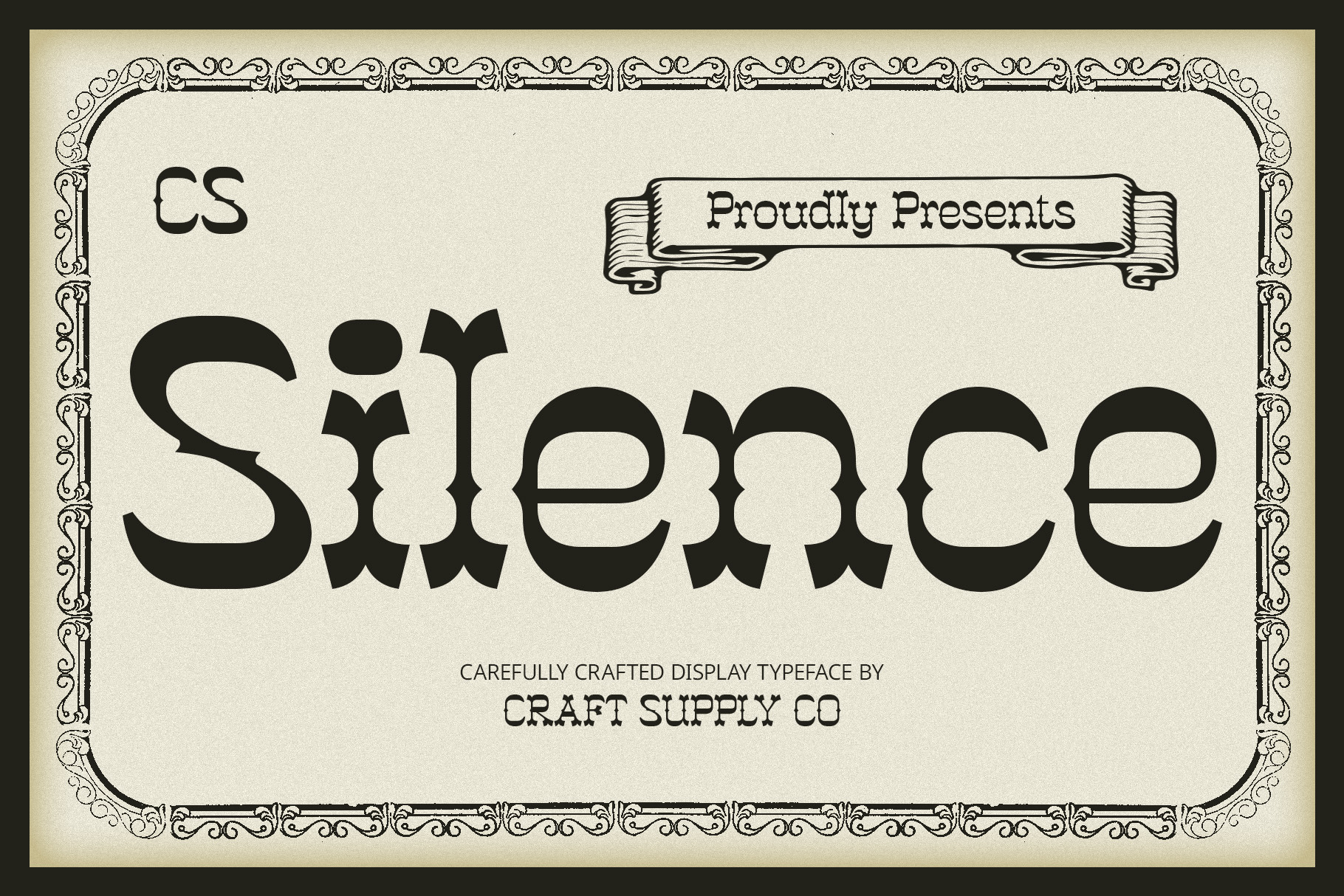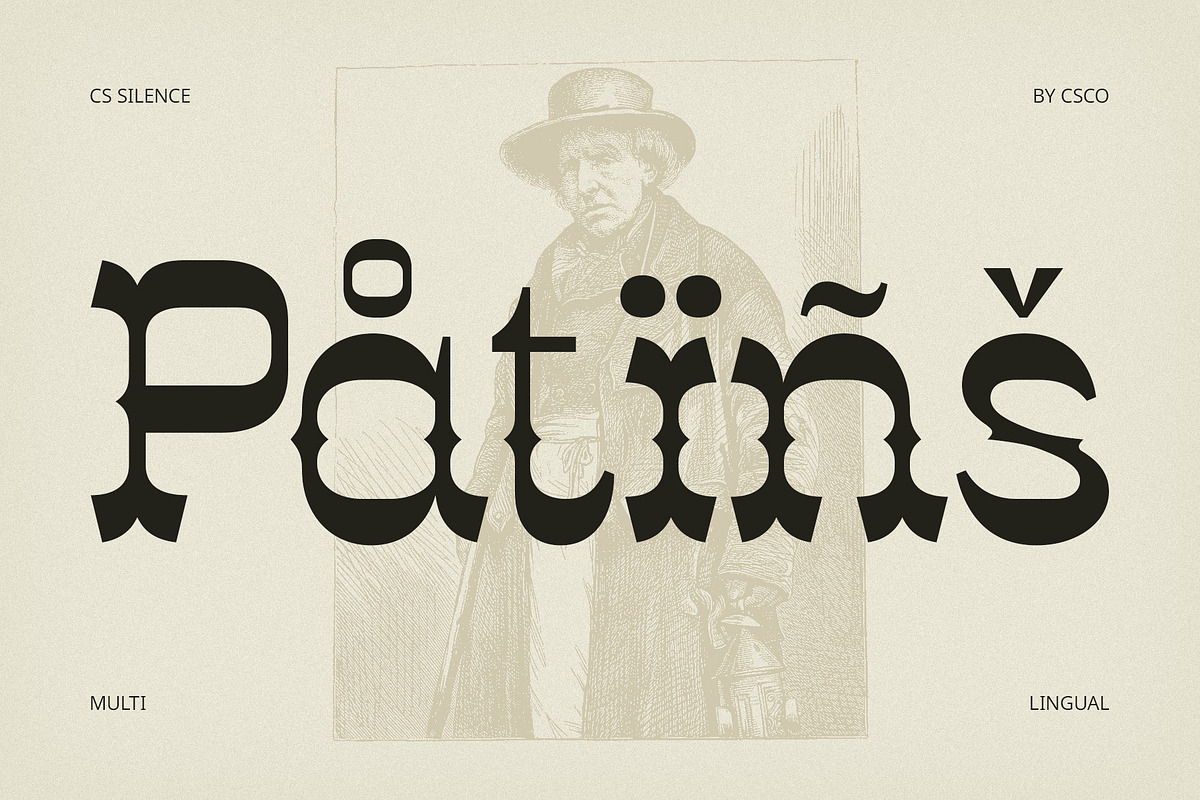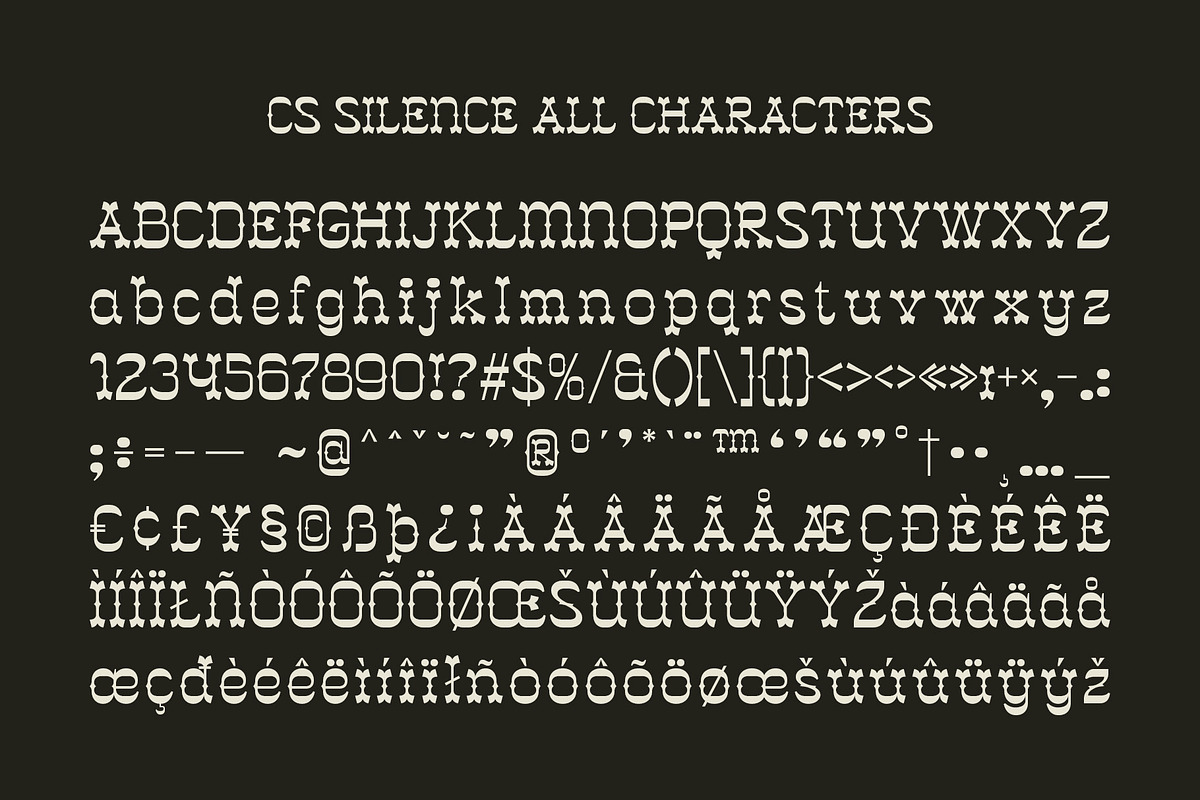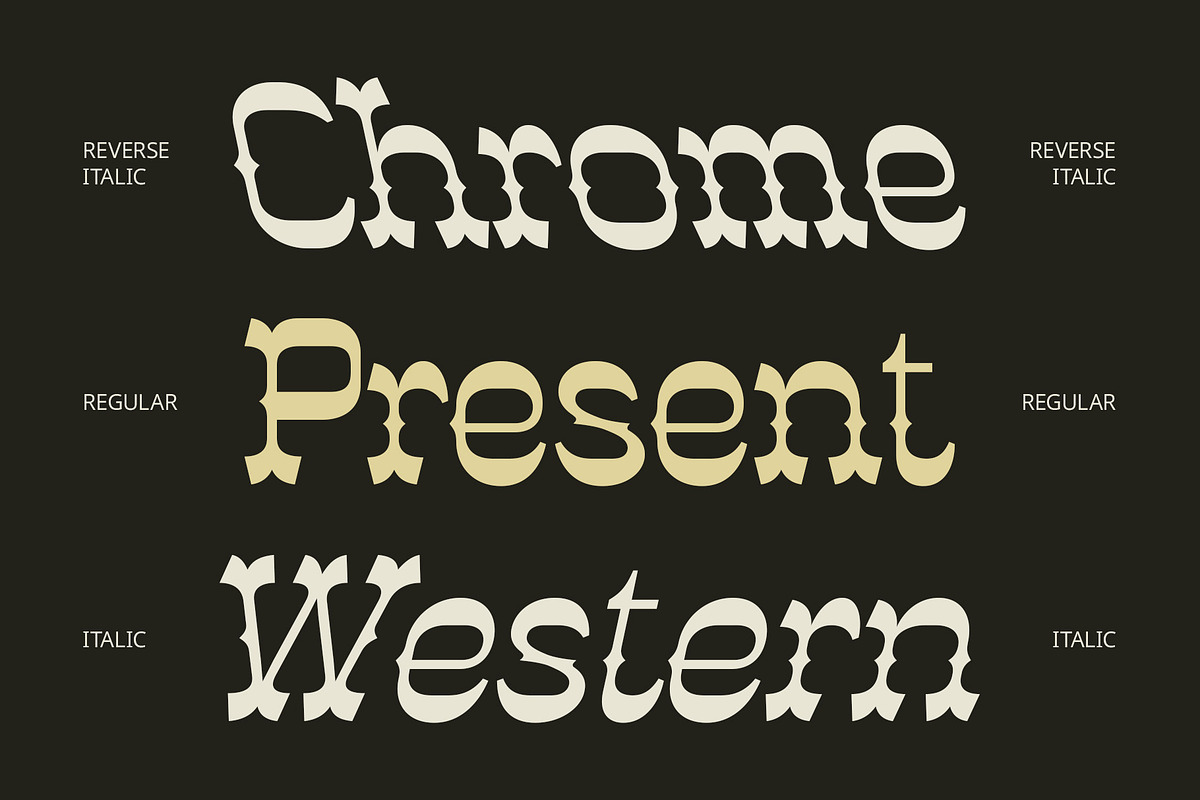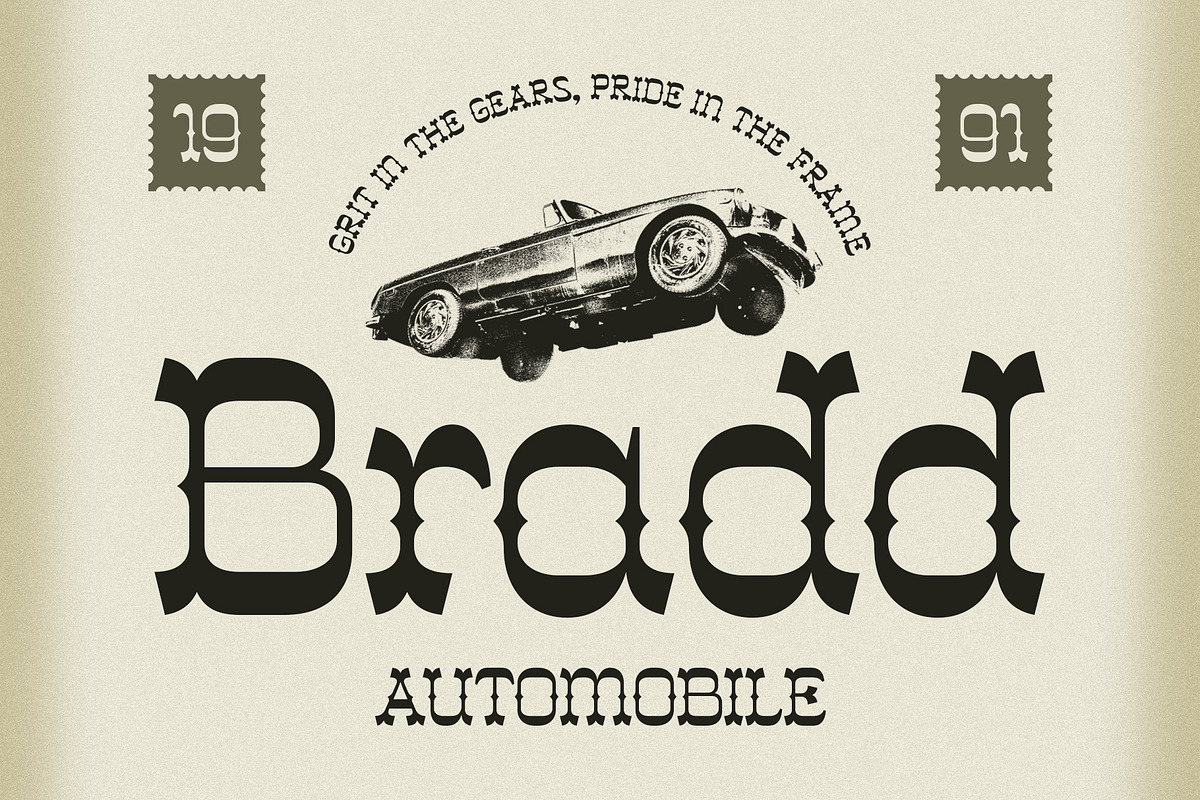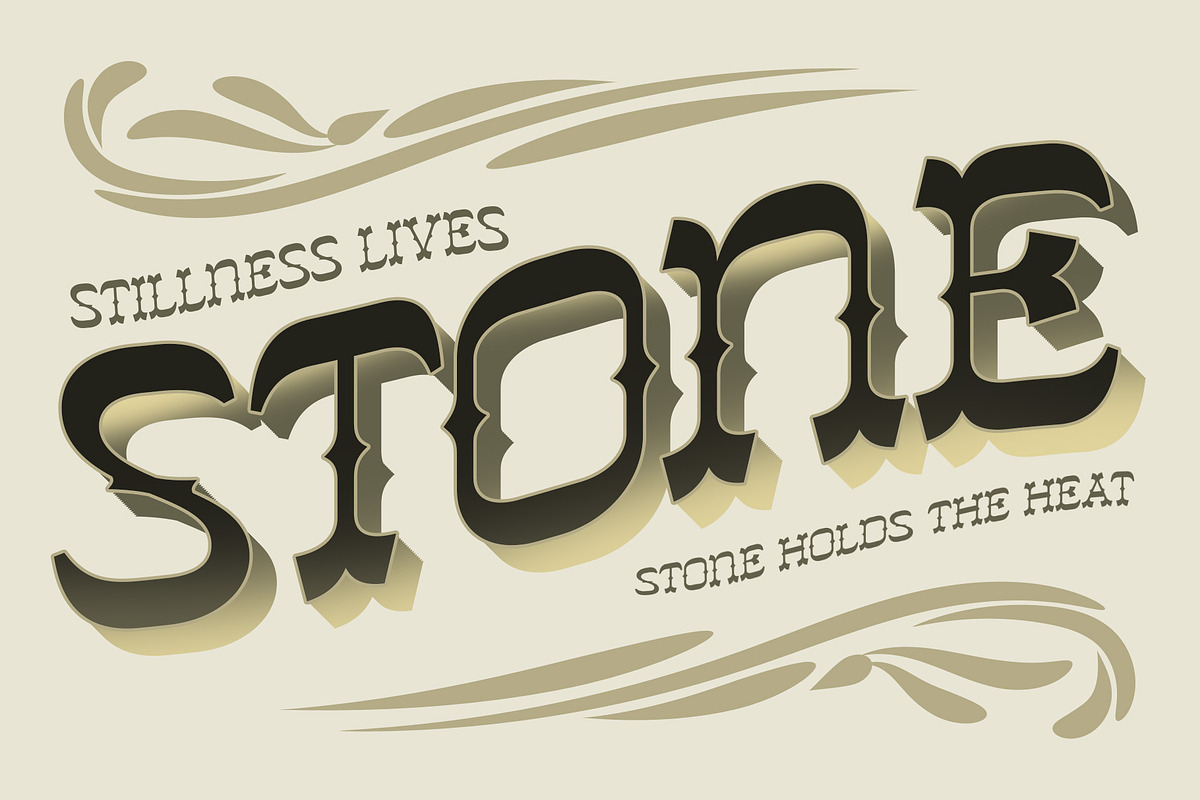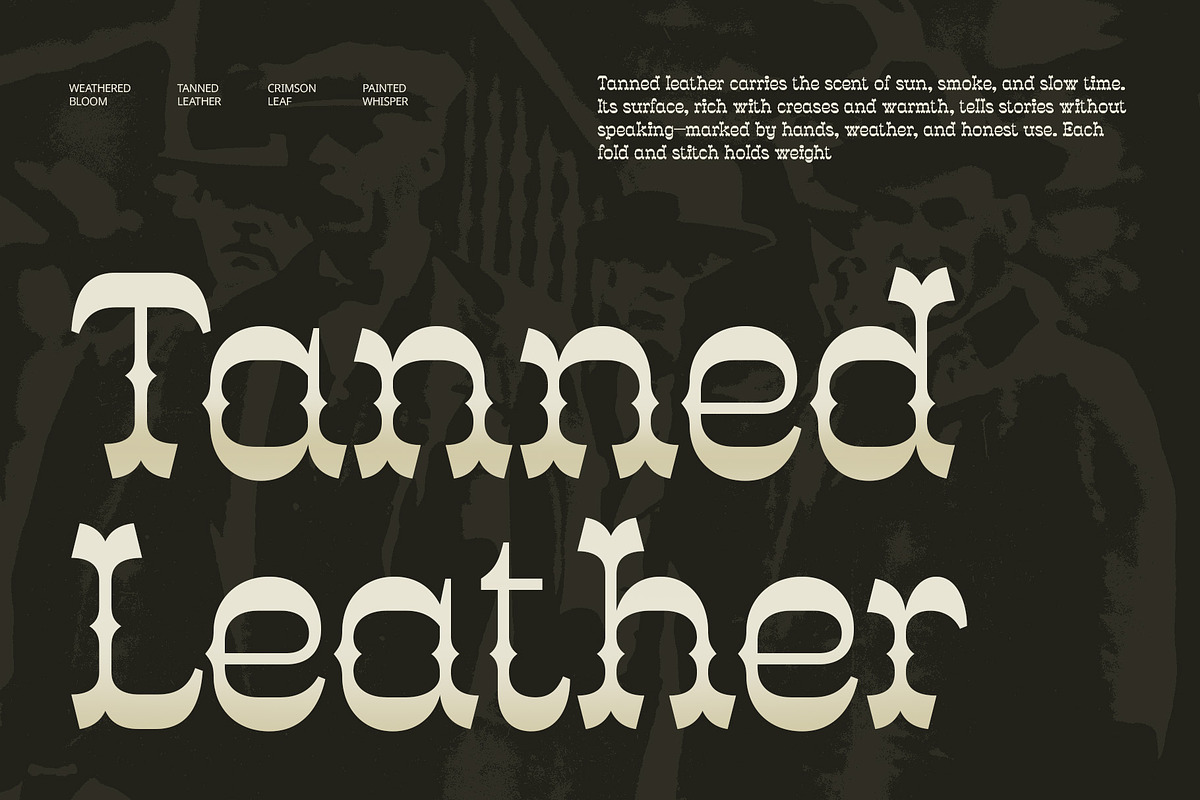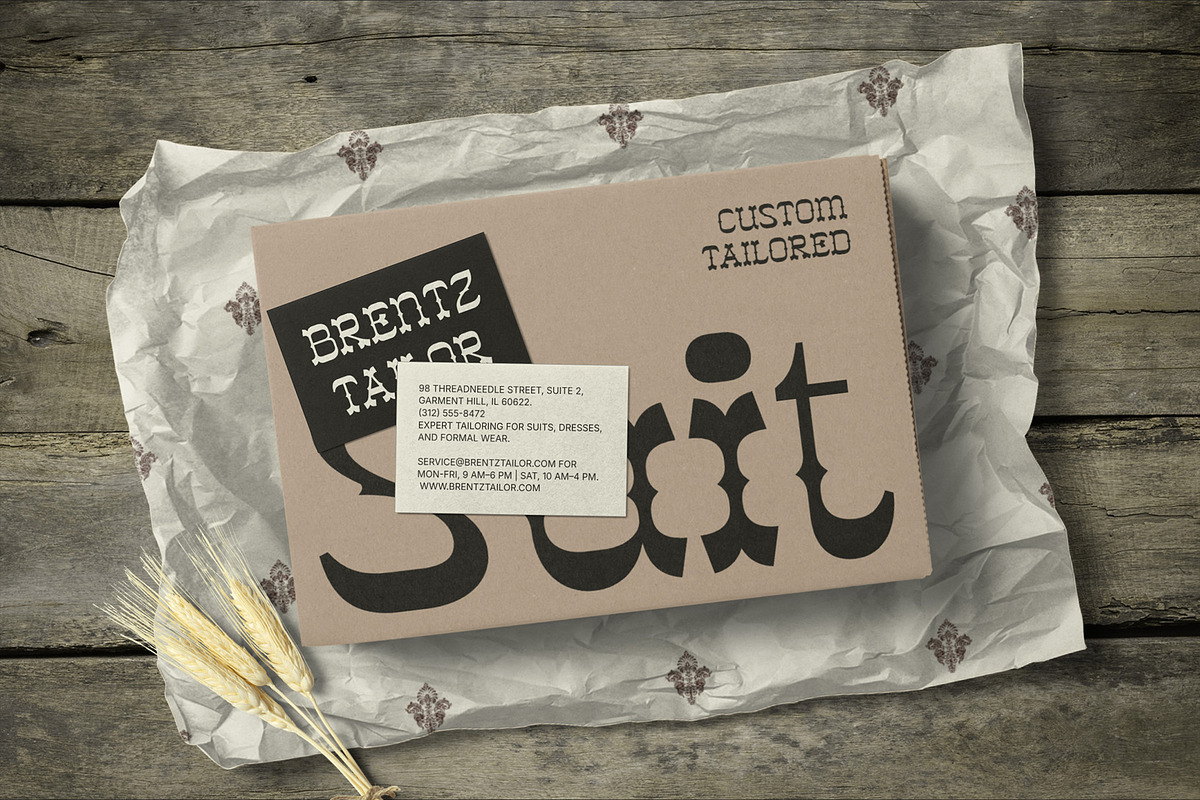
CS Silence – Tuscan Font
CS Silence – Tuscan Font: Bold Expression with Vintage Charm
A Unique Blend of Tuscan Flair and Reverse Contrast CS Silence is a display serif font that merges the ornate character of Tuscan letterforms with a striking reverse contrast structure. Thick horizontal strokes dominate its design, while the signature curved and spurred terminals of the Tuscan style add historical elegance and decorative flair.
Bold, Eccentric, and Full of Personality This font is unapologetically bold and packed with personality. The reverse contrast makes it stand out instantly, offering a daring and unconventional look that’s perfect for adventurous creatives and standout typographic statements.
Perfect for Artistic and Attention-Grabbing Designs CS Silence is a natural fit for eye-catching posters, creative logos, or artistic branding that demands to be noticed. Its vintage undertones and dramatic styling make it ideal for projects with a nostalgic twist or an experimental edge.
Designed to Make a Statement Whether you’re crafting a visual identity or a bold headline, CS Silence brings expressive charm and originality. It’s more than just a typeface—it’s a design centerpiece that captures attention and adds a distinctive voice to any creative project.